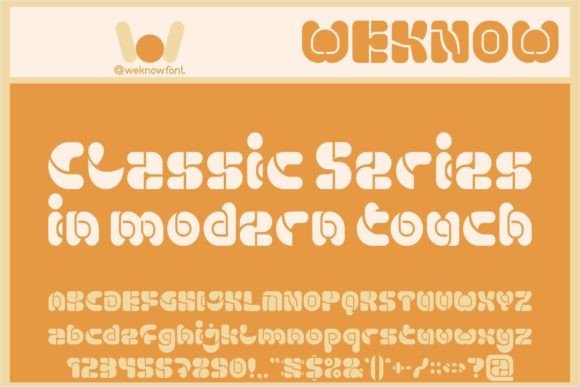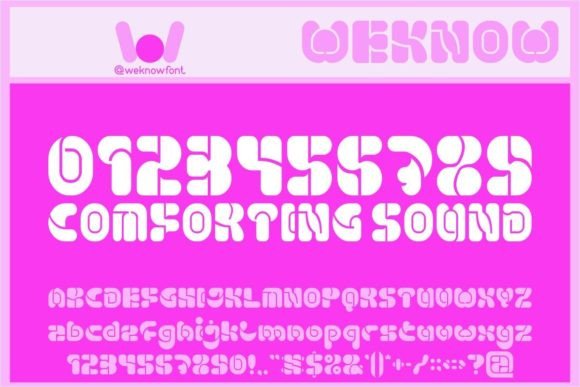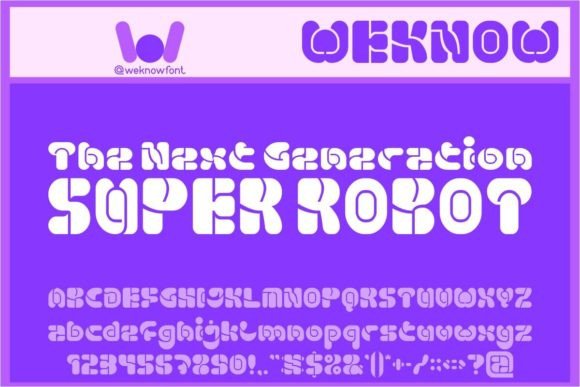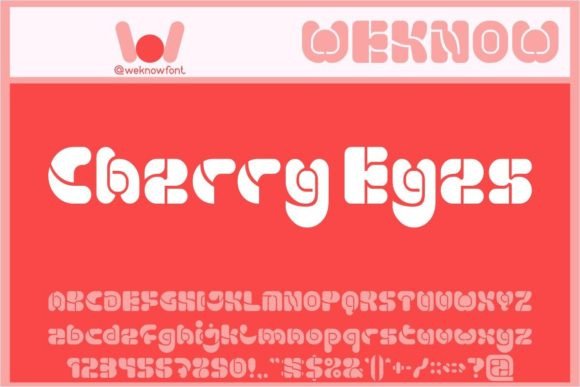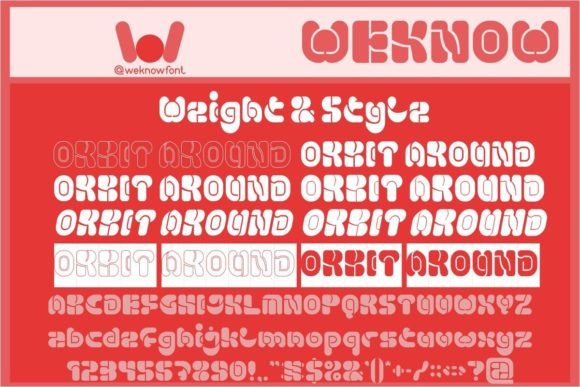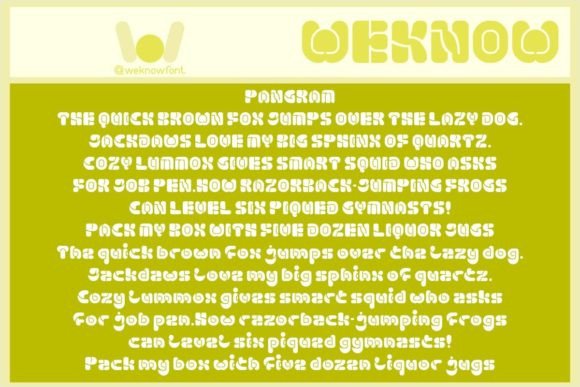
Introduction to Orbit Around Font
Have you ever been working on a creative project, staring at a blank page, trying to find the perfect font to bring your idea to life? I know I have. The excitement of watching your concept take shape, only to be held back by the lack of a font that truly captures the essence of your vision. That’s where “Orbit Around Font” comes in – a game-changing design resource that’s about to revolutionize the way you approach your next project.
This stunning font is not just a pretty face; it’s a versatile tool that can add a touch of sophistication and whimsy to anything from logos and headlines to corporate identities and apparel designs. With its unique blend of futuristic and vintage elements, “Orbit Around Font” is the perfect choice for designers looking to add a high-quality, high-tech aesthetic to their work.
What sets “Orbit Around Font” apart is its ability to seamlessly integrate with transparent backgrounds, making it a standout choice for anyone looking to create eye-catching graphics and designs that pop. And the best part? It’s available for free download, making it an invaluable addition to any designer’s toolkit.
Key Features of Orbit Around Font
- High-quality, vector-based design suitable for a creative project, allowing for scalability without loss of detail.
- Transparent background, enabling users to easily place the font over various backgrounds and images.
- Unique, orbit-inspired design that adds a touch of creativity and visual interest to any project or presentation.
- Perfect for use in a variety of design contexts, including logos, graphics, and typography-based art.
Honest Review: Orbit Around Font
As a designer, I’m always on the lookout for unique and high-quality fonts to add some flair to my creative projects. The Orbit Around Font is a great example of a design resource that delivers on both fronts.
One of the standout features of this font is its versatility. It’s perfect for creating eye-catching headlines and titles, and its transparent background makes it easy to layer with other design elements. ✨
- High quality: The Orbit Around Font is well-crafted and looks great at a variety of sizes and resolutions.
- Creative possibilities: With its unique design, this font opens up a world of creative possibilities for designers working on everything from branding to advertising.
That being said, I do think the Orbit Around Font could benefit from more variations and styles to keep it feeling fresh and exciting. ⚠️
Overall, I’m impressed with the Orbit Around Font and would definitely recommend it to fellow designers looking to add some visual interest to their projects.
Designing with Orbit Around Font
The Orbit Around Font is a versatile, high-quality design resource ideal for creative projects. Its transparent background makes it easy to layer and combine with other elements, allowing for endless design possibilities.
Tips for Getting the Most Out of Orbit Around Font
1. Experiment with layering the font with other design elements for a unique look.
2. Use the font in combination with a transparent background to create a seamless design.
3. Take advantage of the font’s high-quality design to create stunning visual effects.
The Orbit Around Font is ideal for:
1. Creative projects, such as infographics, posters, and social media graphics.
2. Business presentations, such as PowerPoint and Word documents.
3. Digital marketing campaigns, such as email newsletters and website headers.
Alternatives to Orbit Around Font
1. Orbitron Font
Orbitron Font is a modern sans-serif font that is perfect for creative projects requiring a futuristic feel. It is available for free download and can be used for personal or commercial purposes. Orbitron Font is ideal for headings and titles in designs that require a sense of technology and innovation. Compared to Orbit Around Font, Orbitron has a more geometric shape and is more versatile in its usage.